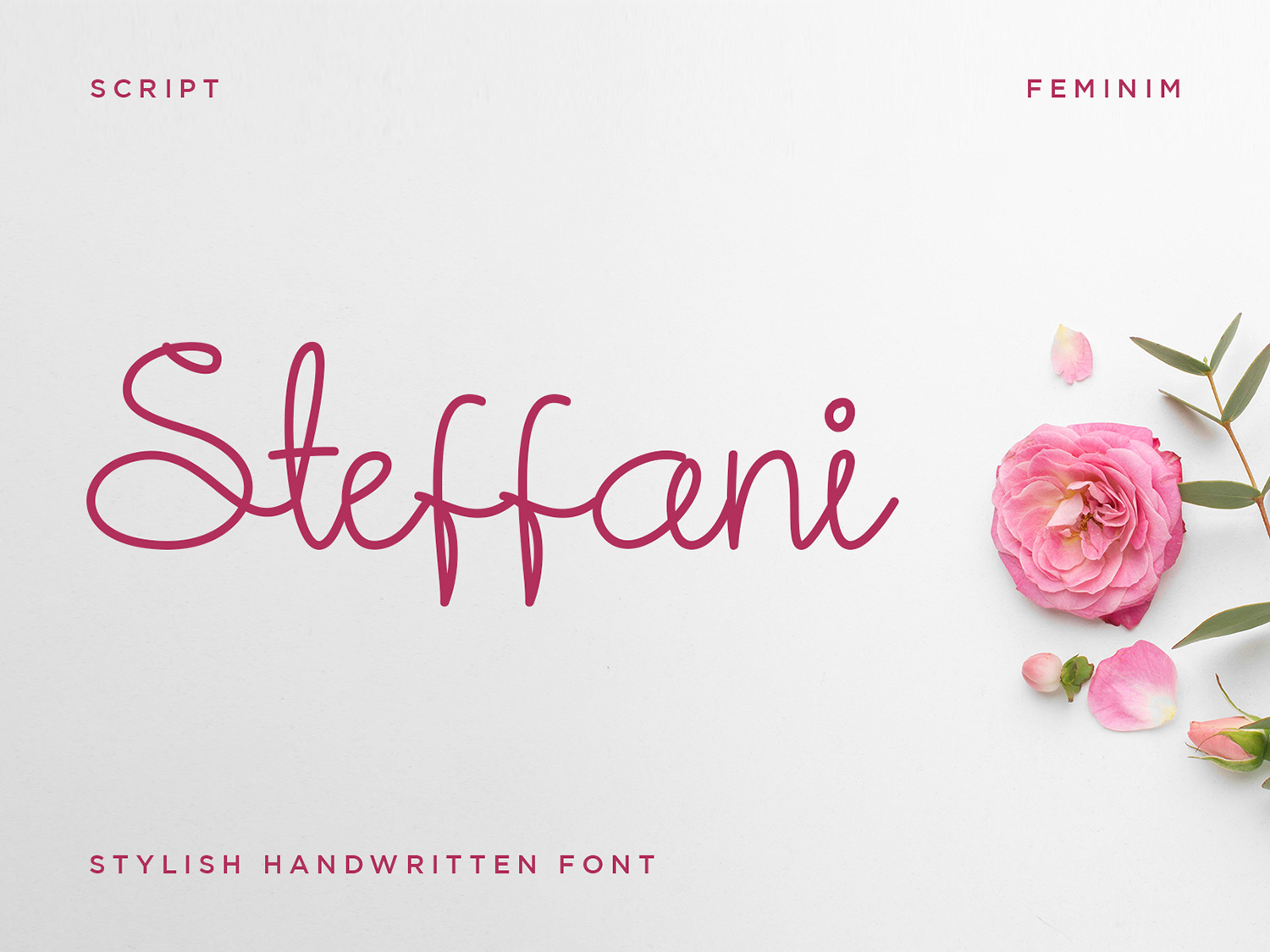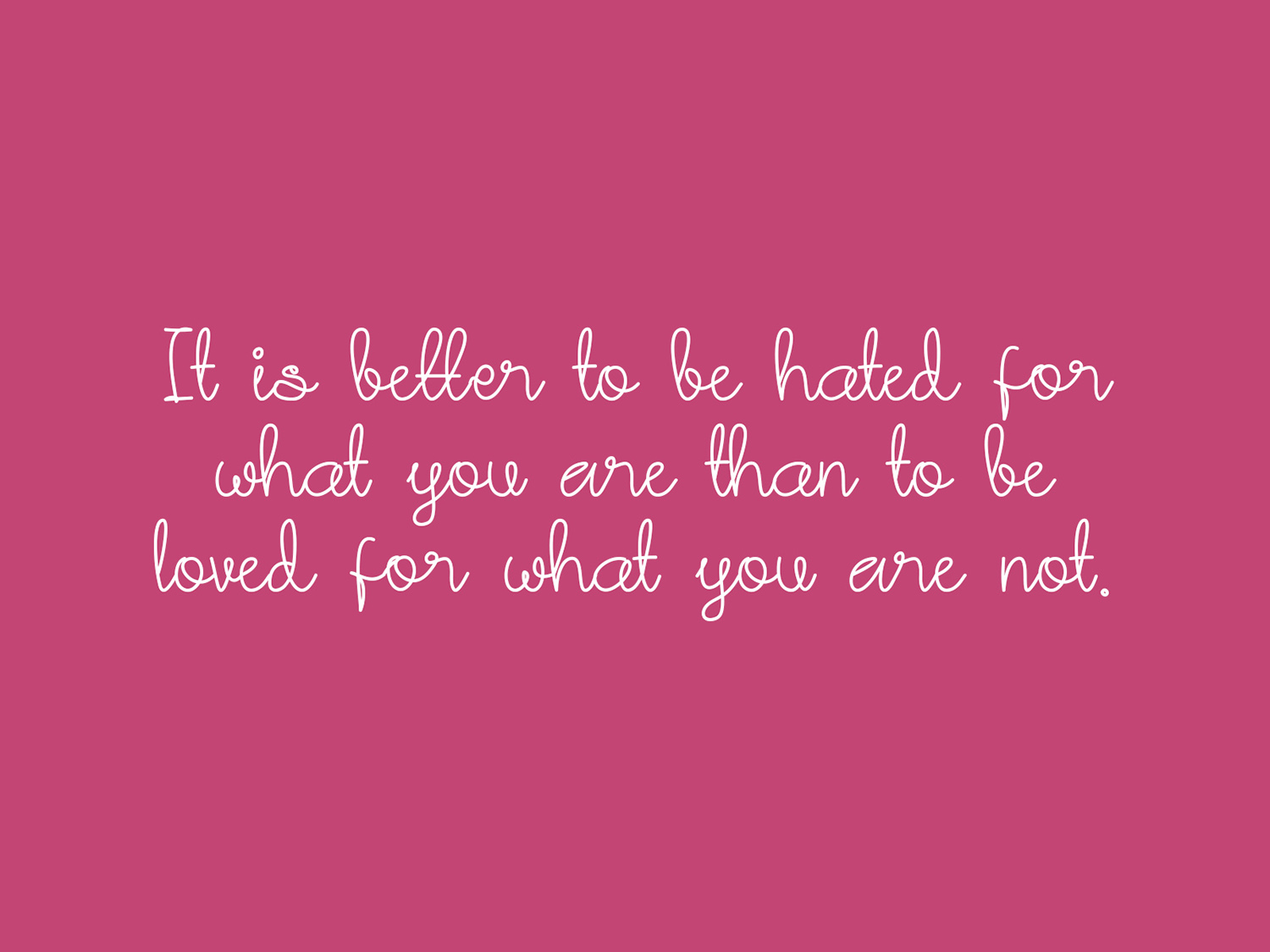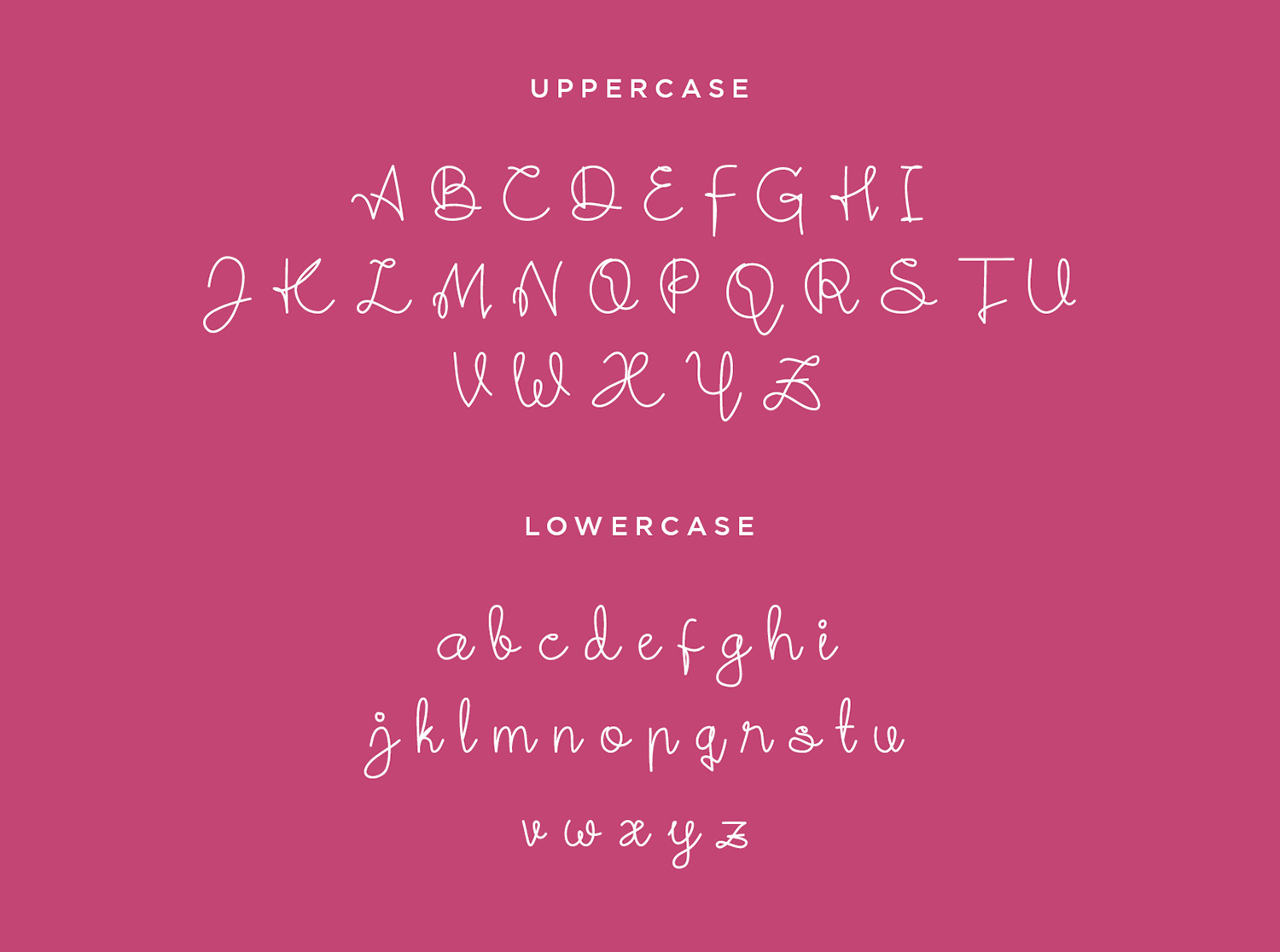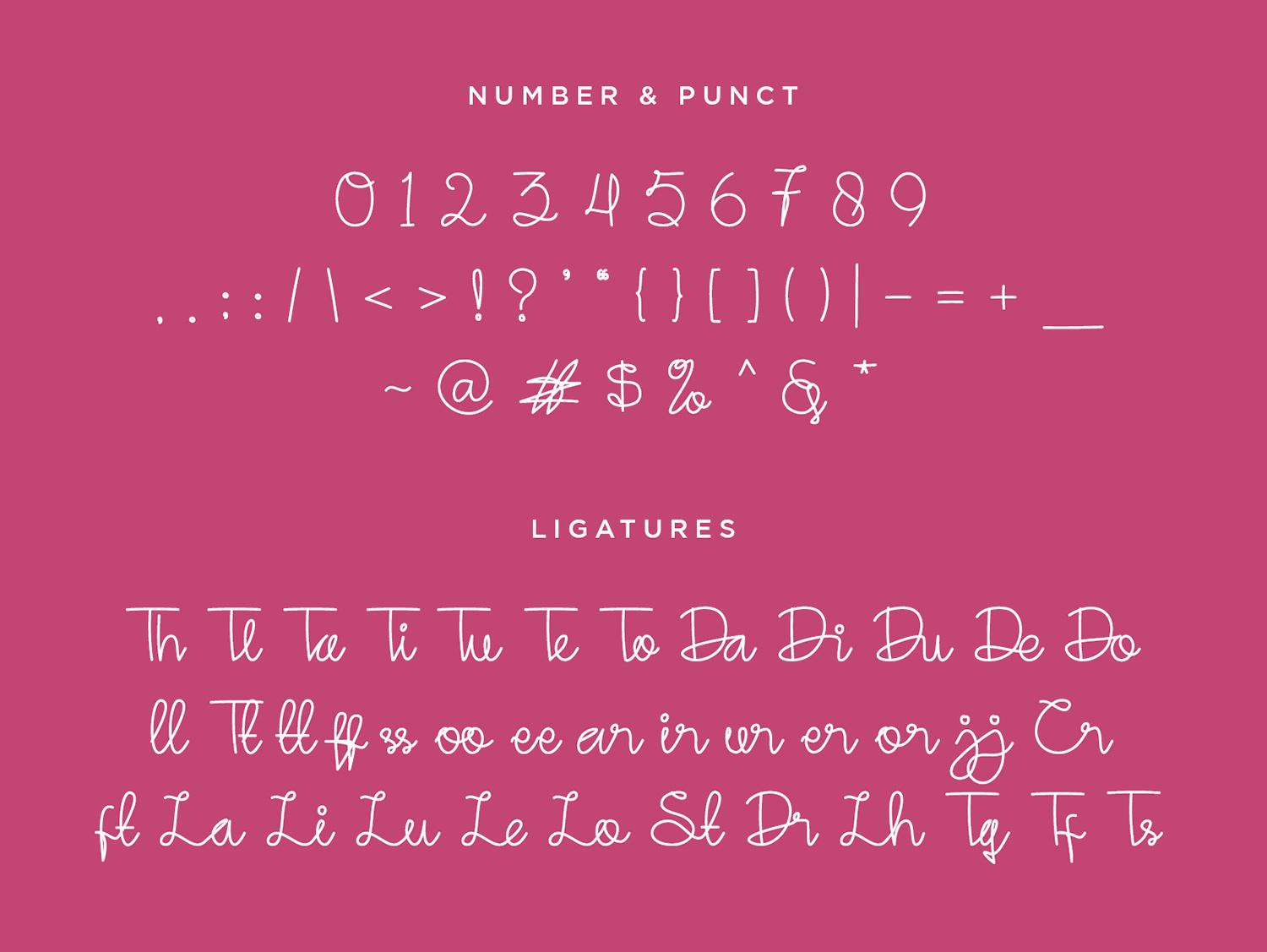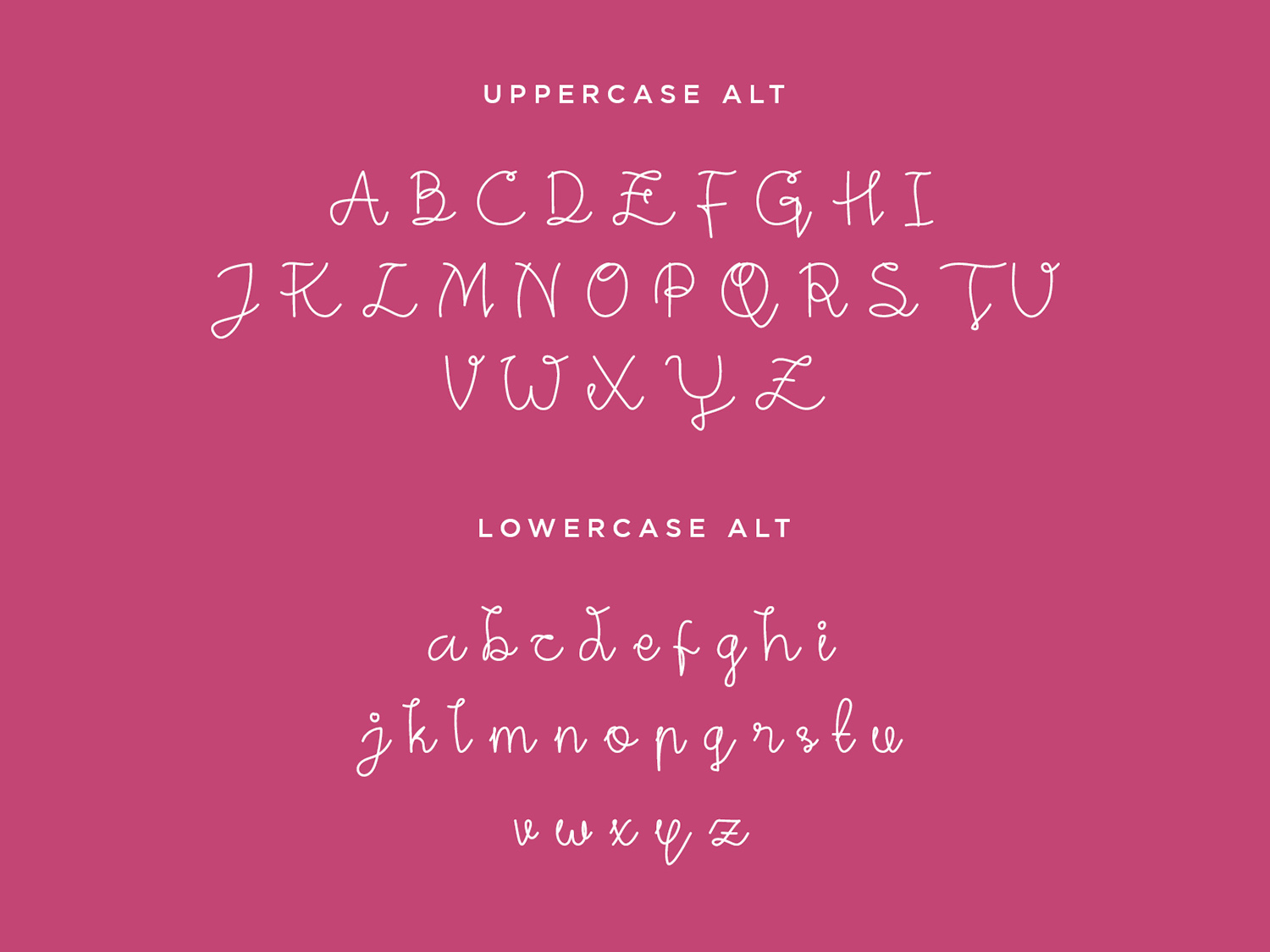
Steffani Free Font
Introducing Steffani Free Font – a captivating and elegant light handwritten font that exudes a distinct charm and leaves a lasting impact. Infuse your design projects with a touch of luxury using this beautiful font!
Unlock the captivating potential of “Steffani” as it effortlessly enhances the visual appeal of any creative endeavor. Whether you’re working on invitations, branding, social media graphics, or any other design project, “Steffani” will add a luxurious spark that sets your work apart.
Embrace the uniqueness of “Steffani” and witness how it transforms your creations into true masterpieces. Don’t miss this opportunity to elevate your designs and make them stand out. Get your hands on this remarkable font and experience the stunning impact it brings to your projects. This free typeface was designed by a talentedΒ Esa Nugroho. If you like it don’t forget to check out the full version.